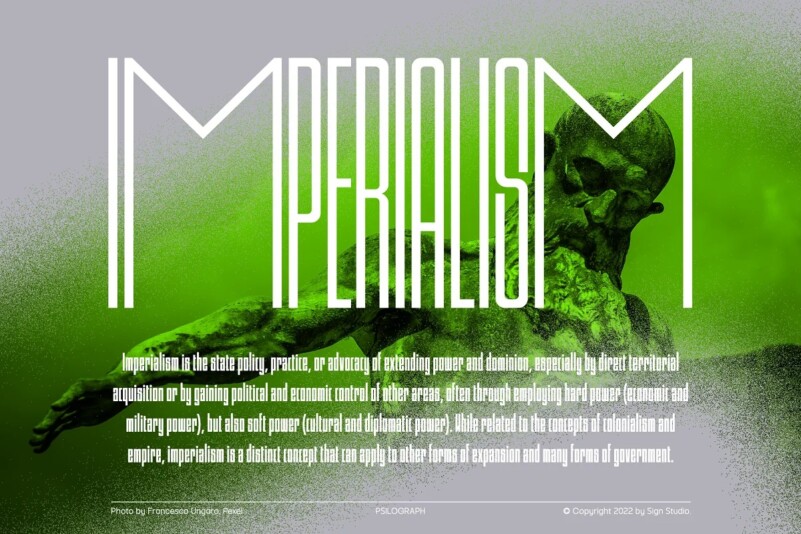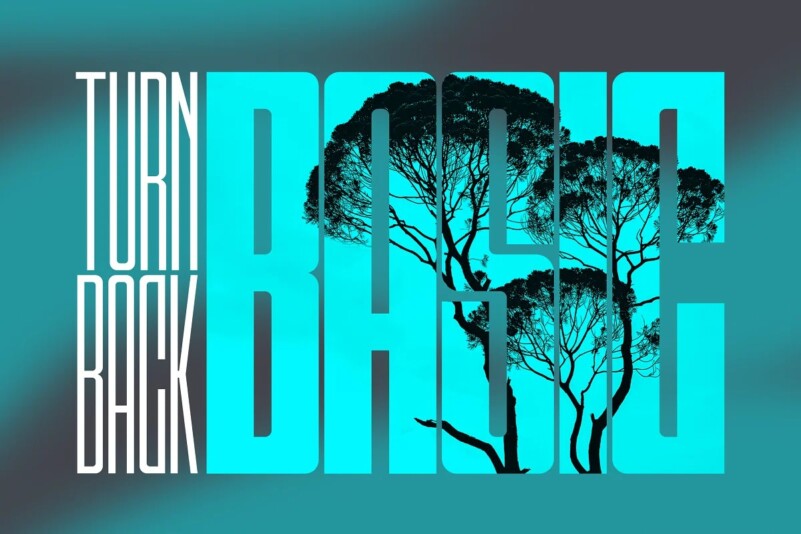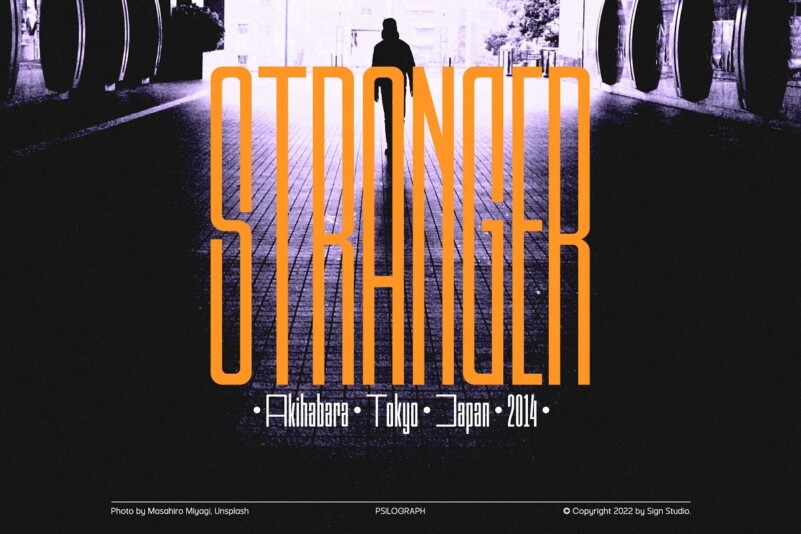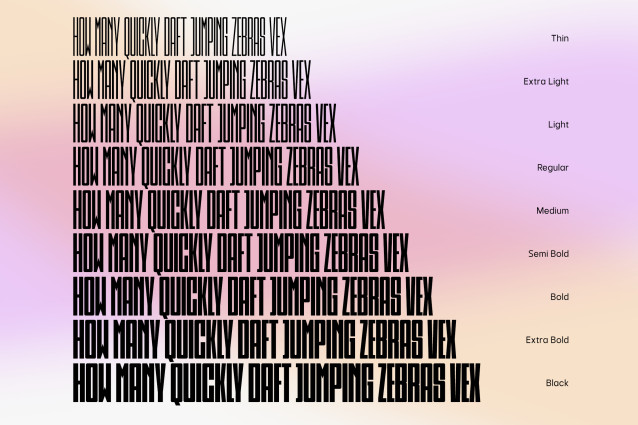
Psilograph Font Family
Psilograph Font is a memorable, strong and elegant typeface inspired by vintage newspaper titles. It will give a strong impression which can be matched with basic sans serif fonts as a body copy that can make it more casual and modern looks. Perfect for headlines, tall-format prints, posters, and displays.